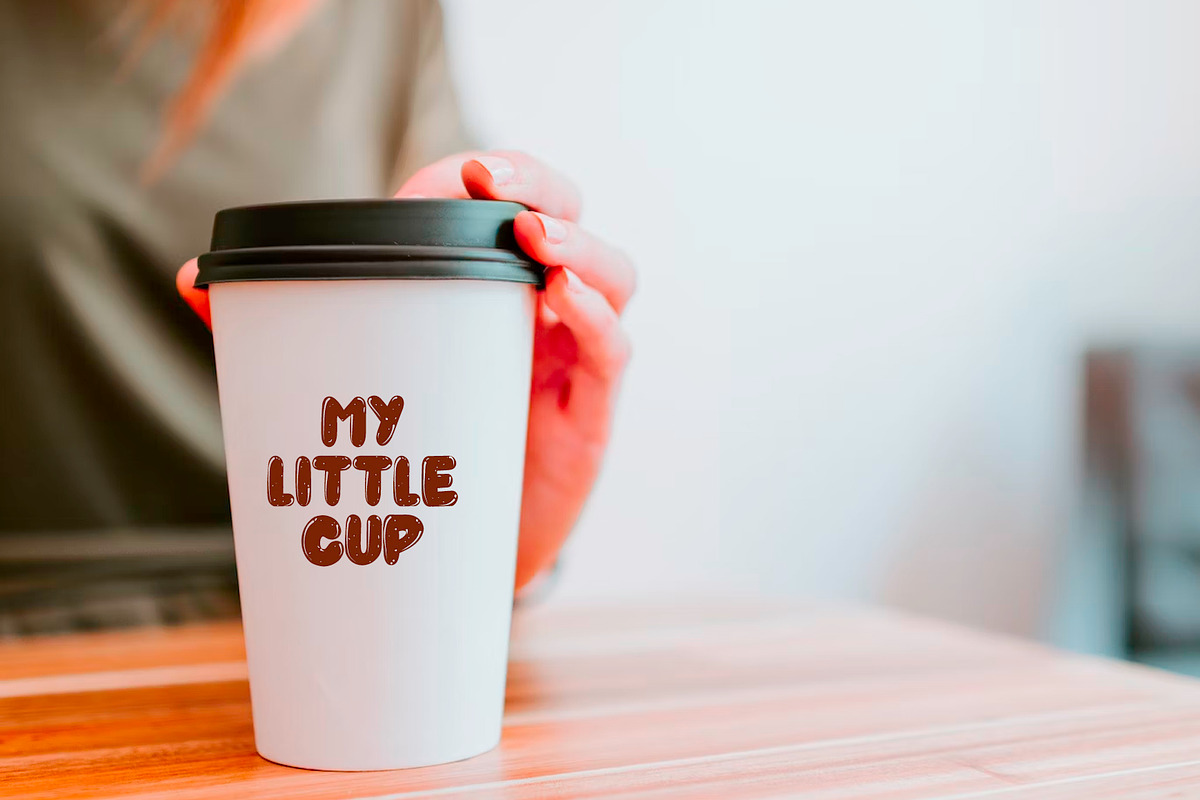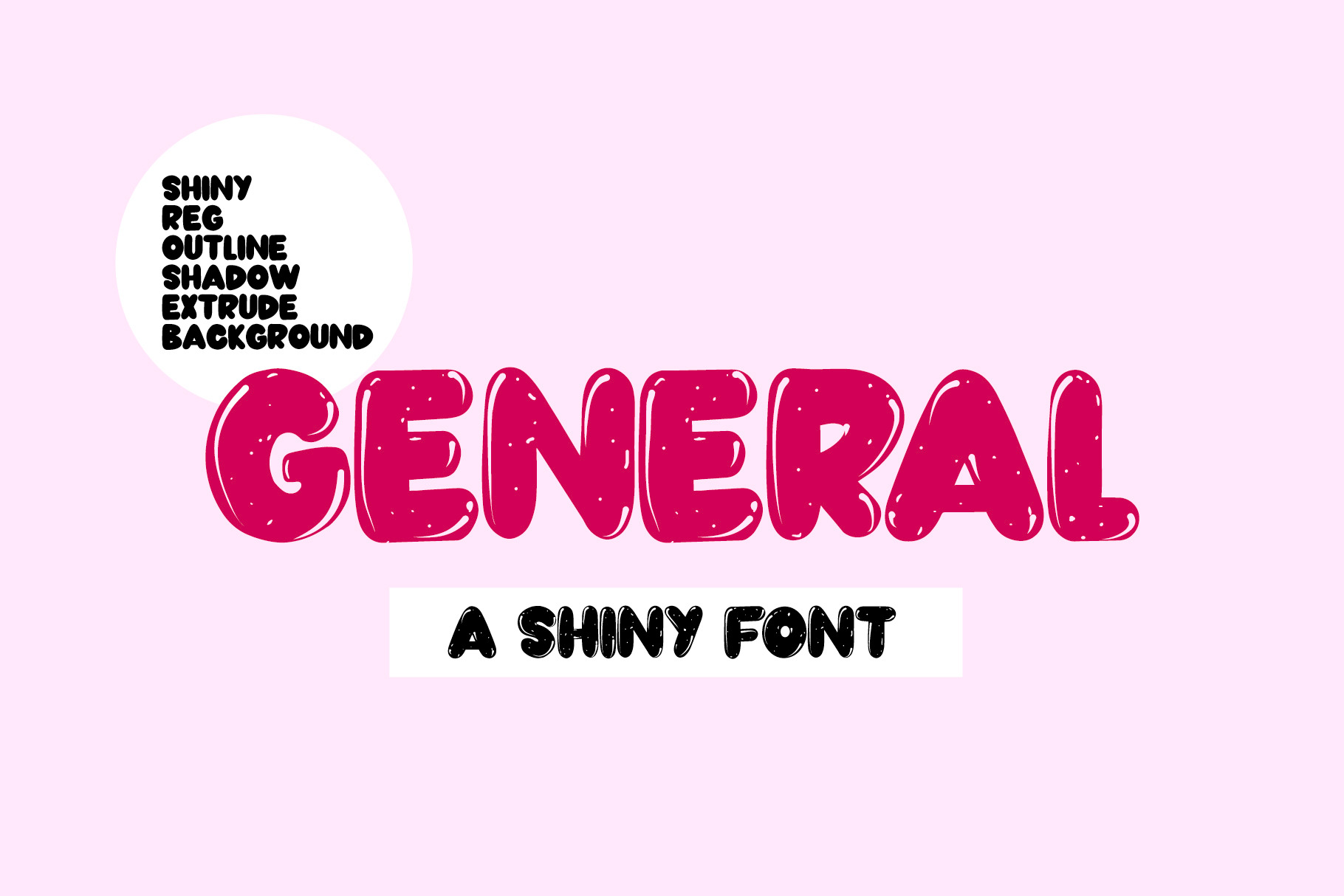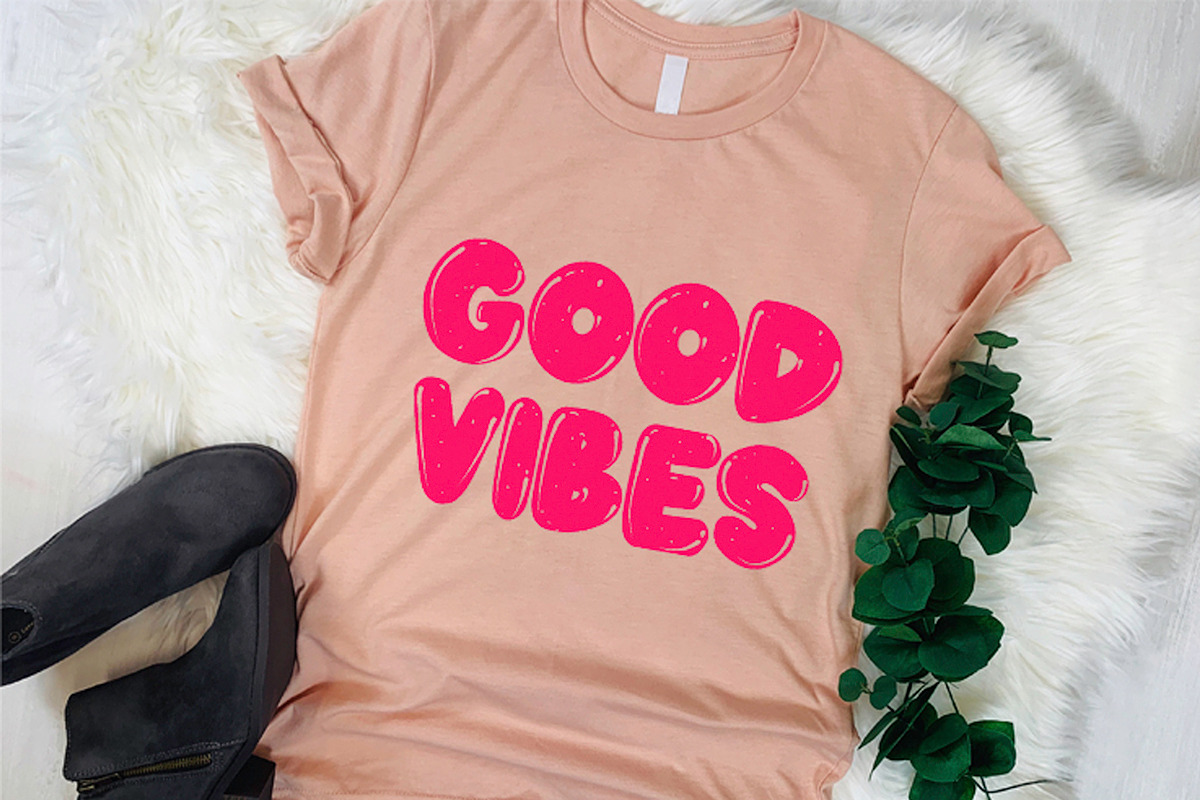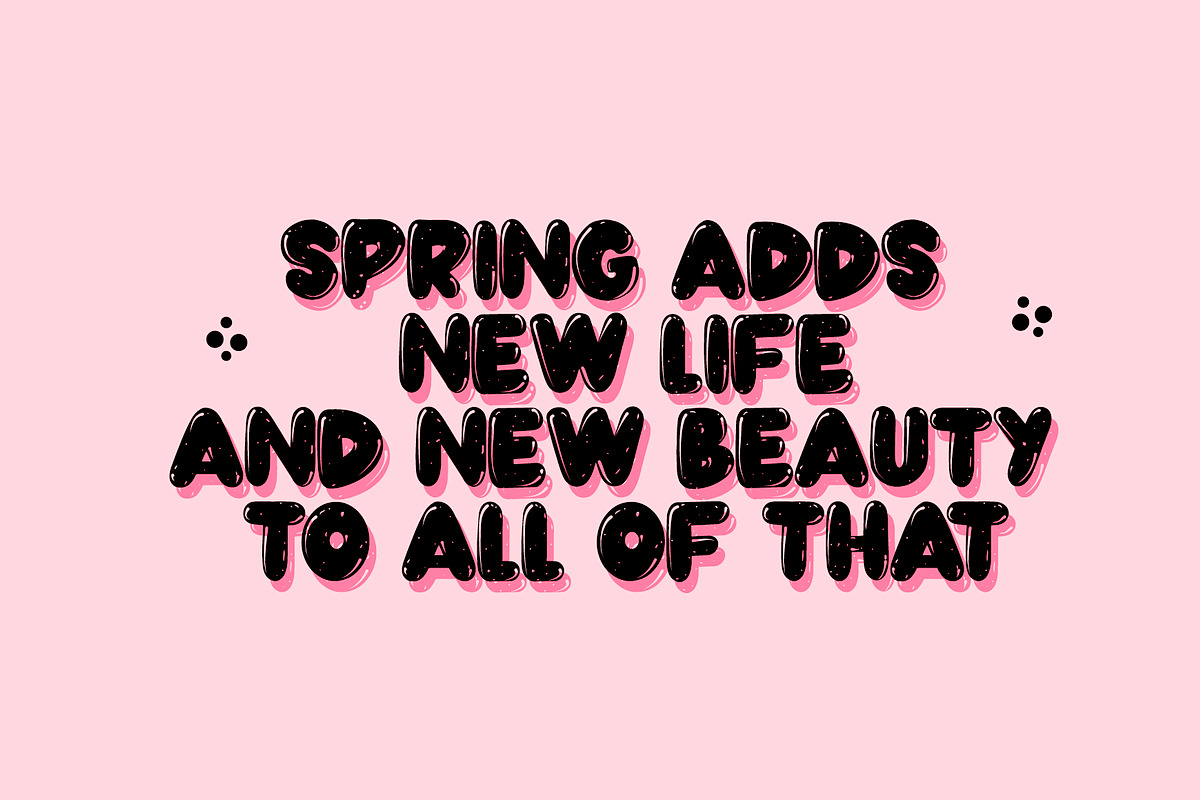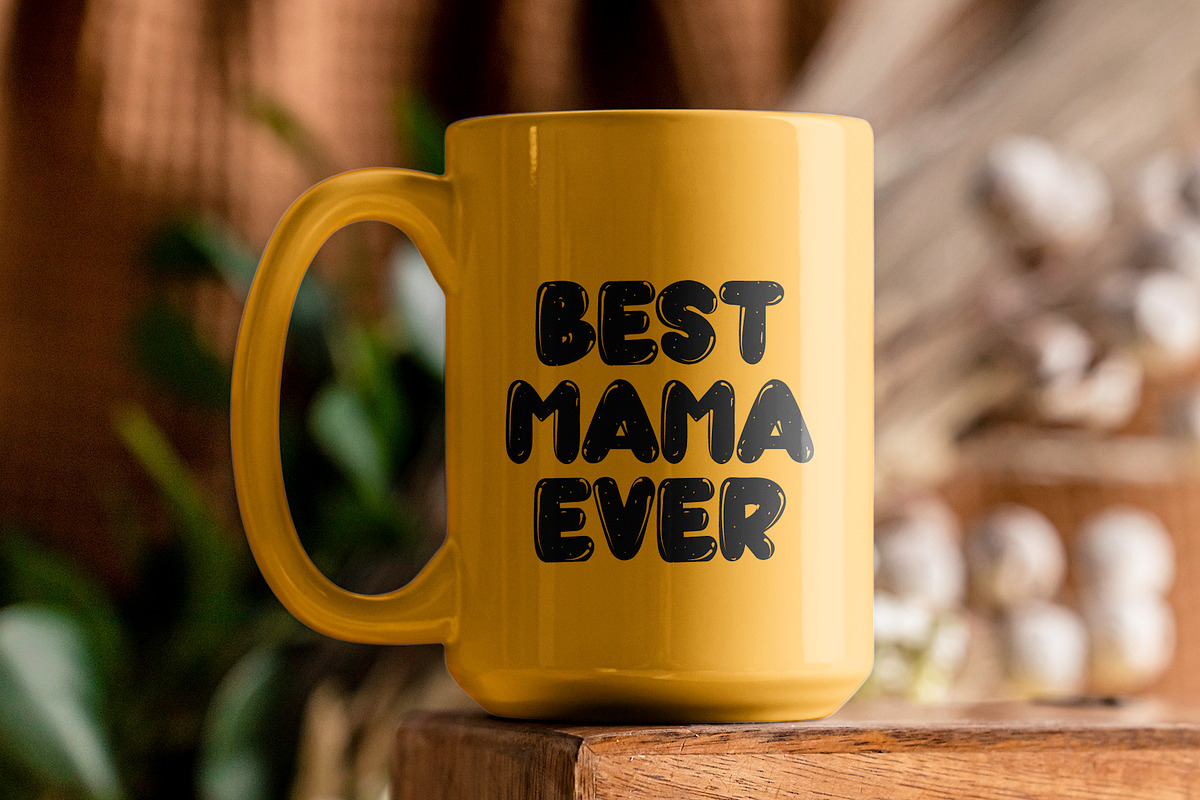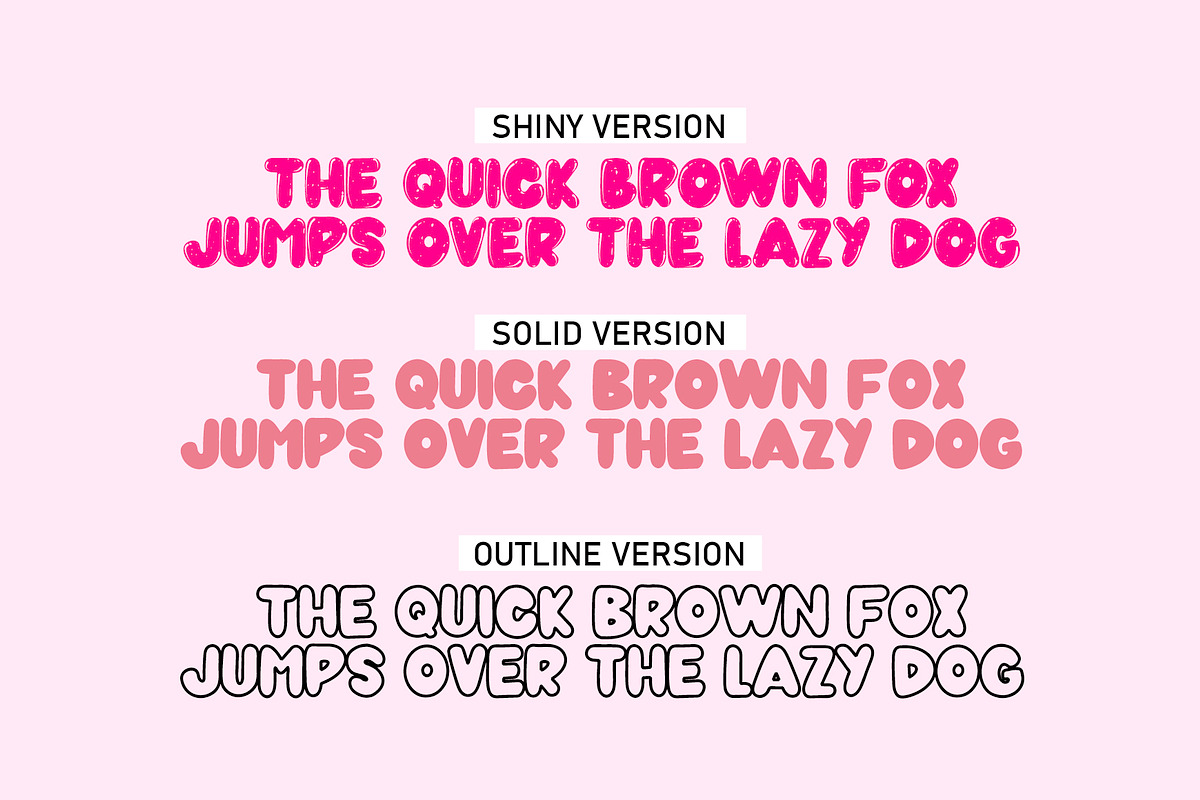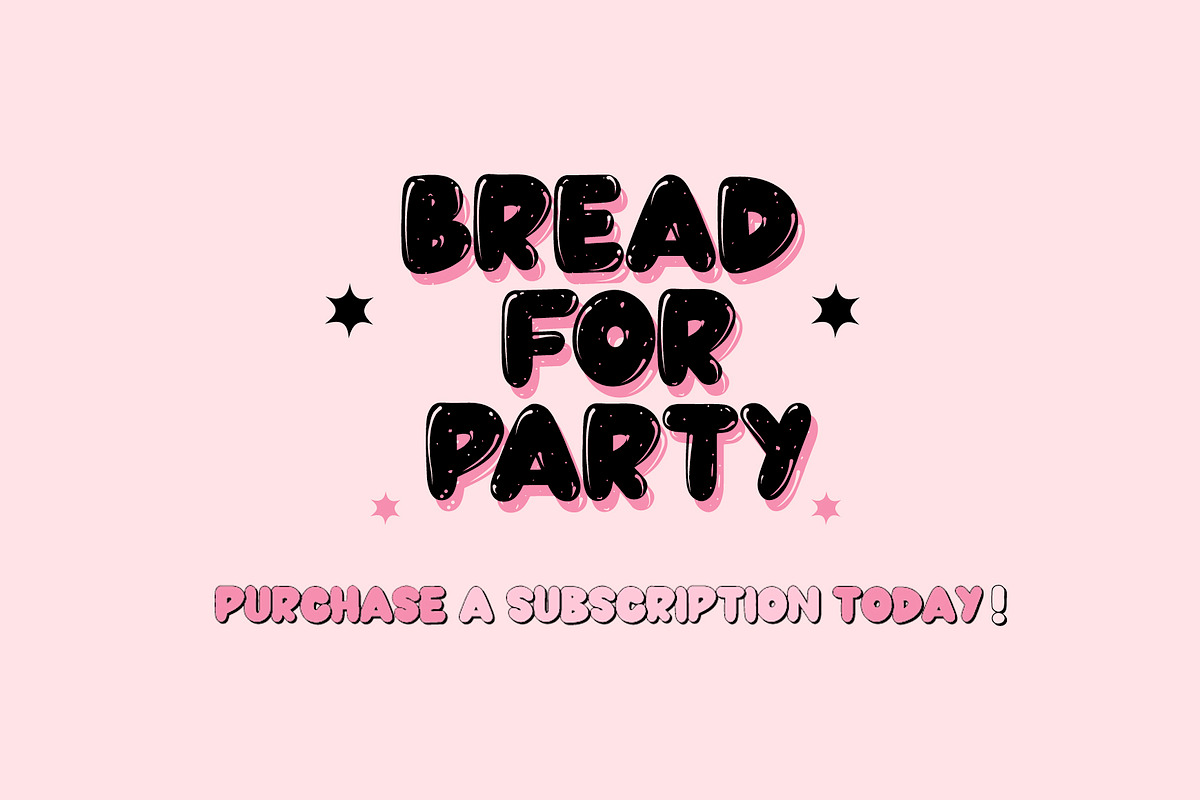
GENERAL | Shiny Font in 6 Versions
General - a trendy shiny font that comes in a shiny, regular, outline, shadow, extrude and background version.
This font is a trendy display font that is perfect for social media or crafty projects. Use if for branding, crafts for decor, invitations, and more! All caps glyphs, numbers, and punctuation marks.